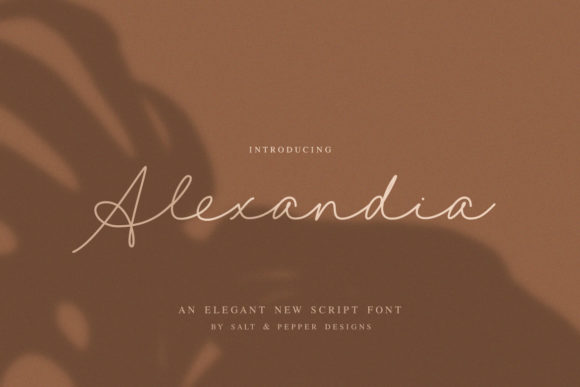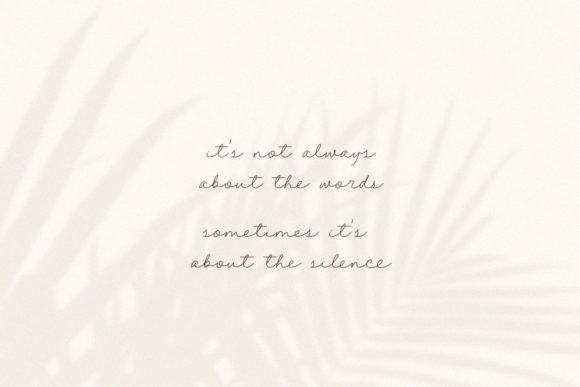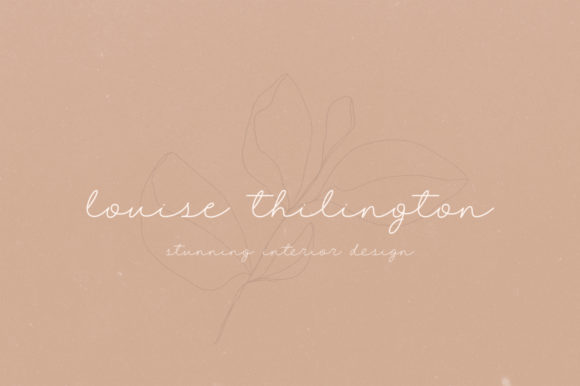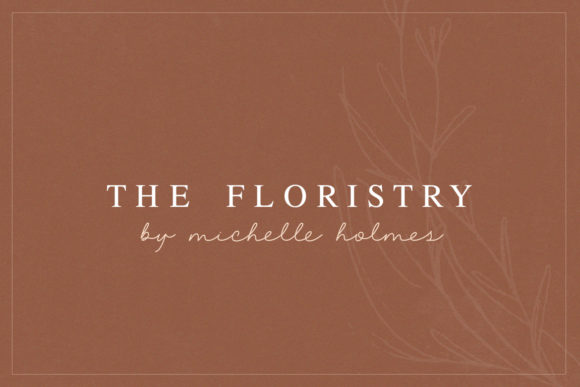
Alexandia Font: Elegant Handwritten Script for Wedding Invitations & Branding
About the Alexandia Font
Elevate your designs with Alexandia Font, a font that combines sophistication with readability. Alexandia is a sweet and lovely handwritten font. It has a beautiful flow and a smooth touch. Not too thin and not too thick, balanced and varied, Alexandia was designed to enhance the beauty of your projects.
Alexandia’s gentle curves and consistent weight make it ideal for projects requiring a touch of elegance and approachability. It excels in short-form text such as logos, headlines, and short social media captions, as well as packaging design where a handcrafted feel is desired. Avoid using Alexandia for large blocks of body text or UI elements; its readability suffers at smaller sizes.
Its inherent warmth pairs well with clean sans-serif fonts like Montserrat or Open Sans for a balanced contrast. For a more playful feel, consider pairing it with a slightly geometric sans-serif, while a classic serif like Garamond would add a touch of sophisticated formality. Script fonts should be avoided as they would create visual clutter.
Alexandia possesses a friendly and approachable personality, conveying a sense of warmth and charm. It’s best suited for brands focused on beauty, lifestyle, food, or artisanal goods where a handcrafted aesthetic is paramount.